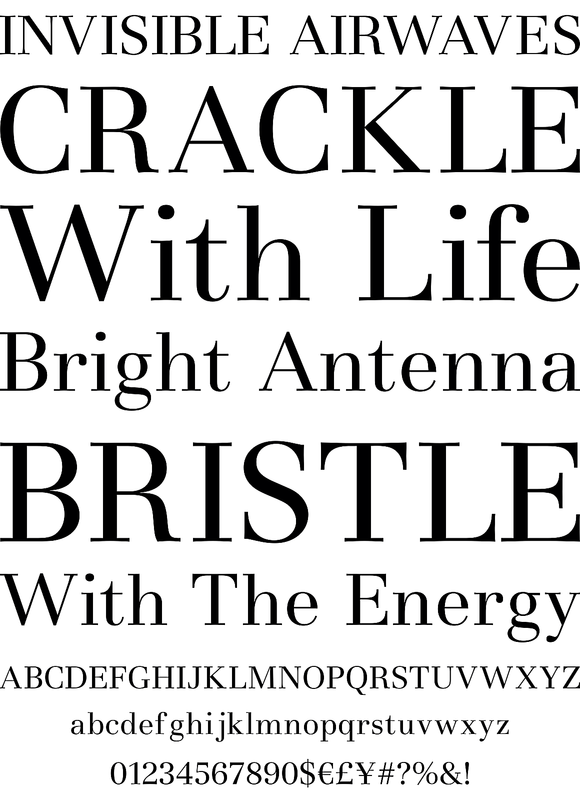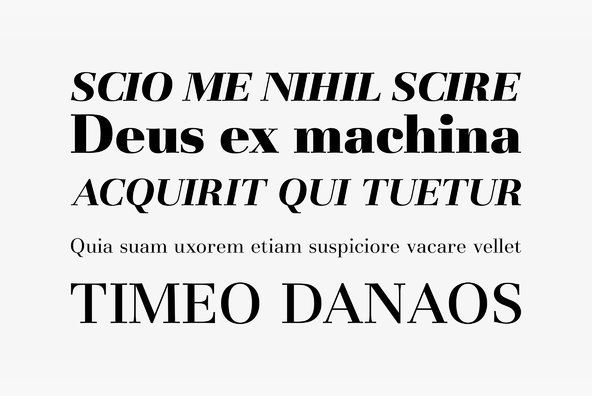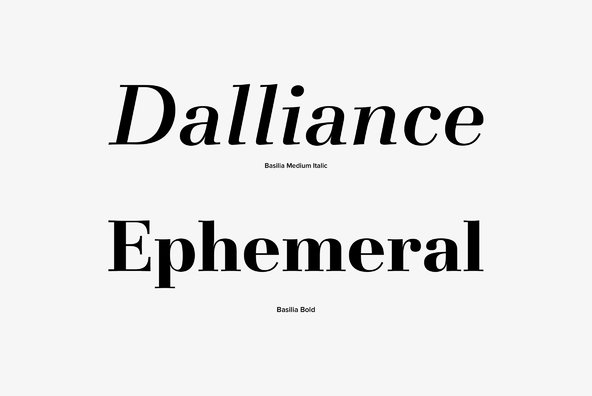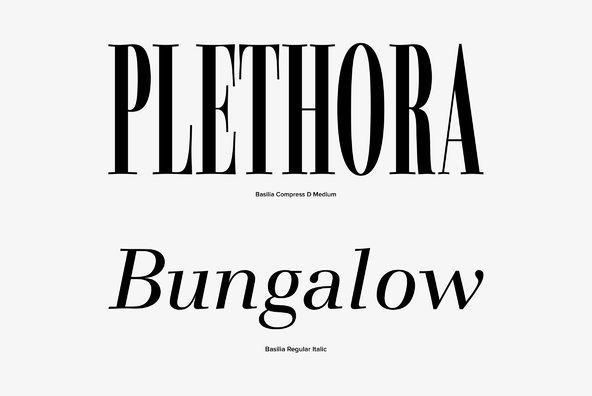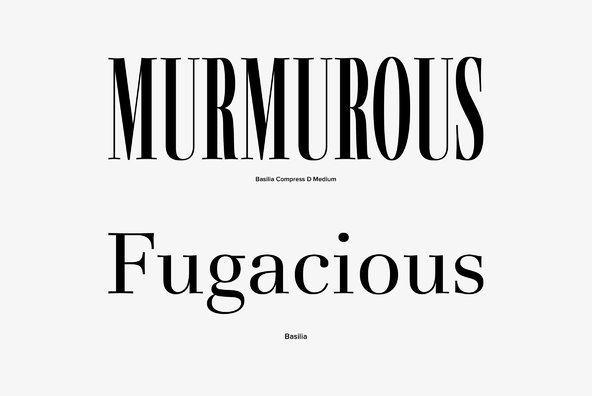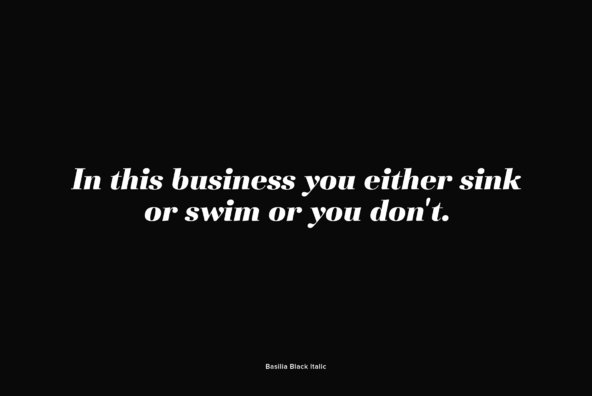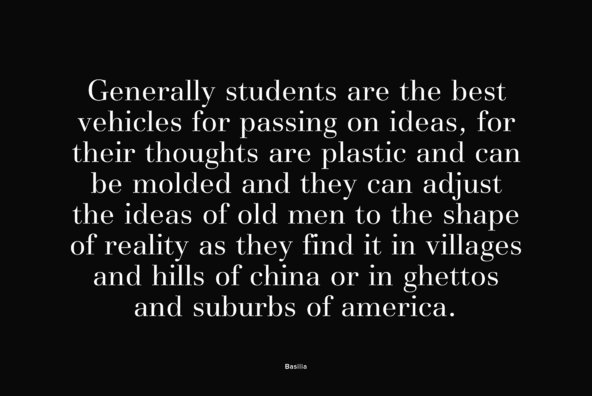
Basilia
Basilia was originally designed in 1978 by Andre Gurtler of Swiss typographic team, Team 77, and released as Basilia Haas in 1982. Basilia is a clean text face with good contrast, similar to Walbaum. The contrast in thick and thin strokes of the Basilia font is very strong, but it has a relaxed feel, suitable for advertising copy. Basilia is exclusively licensed through Linotype Library GmbH.